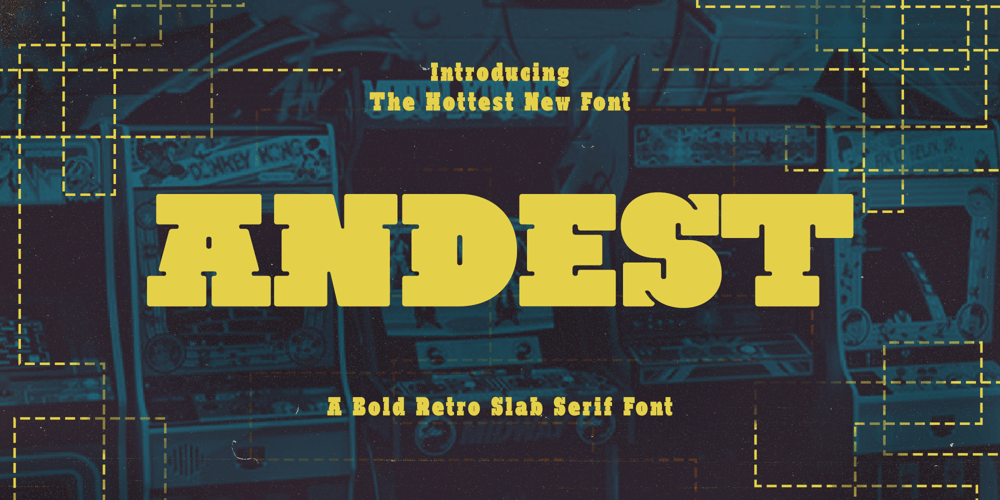
Andest
Andest font
Andest Font Family was designed by Dede Kurniawan and published by Creatifont Studio. Andest contains 9 styles and family package options. Andest – is a slab serif font that makes a statement with its thick, blocky letters and eye-catching ink traps. Its retro-inspired design evokes the bold typography of vintage arcade games and sports posters, while its innovative right and left italic styles add a unique twist. Andest is a versatile font that can be used for a wide variety of design projects. It’s perfect for headlines, logos, branding, packaging, posters, and any design that demands attention. Its retro aesthetic makes it a great choice for projects that want to evoke a sense of nostalgia or playfulness.A SUMMARY OF WHAT’S INCLUDED: Standard Character A-Z, a-z, 0-9, Punctuation & symbols 3 Width Styles (Regular, Condensed, Expanded) 2 Oblique/Italic (Left and Right) font on each width styles Works on PC & Mac Simple installation Accessible in Adobe Creative Suite (Ai, Ps, Id, etc.) even work on Microsoft Word. PUA Encoded Characters – Fully accessible without additional design software. 🌟If you come across any issues or notice anything we might have overlooked while using this product, please feel free to reach out to us. We greatly value your feedback as it helps us enhance and refine our products. Thank you!